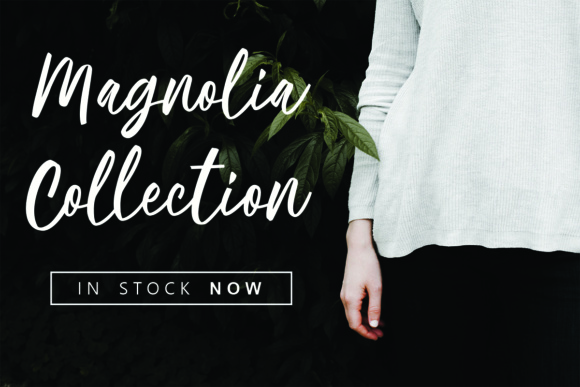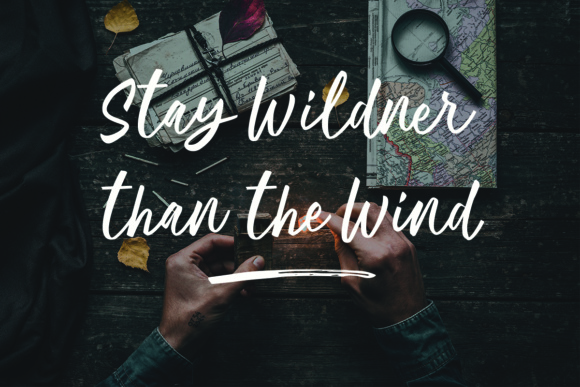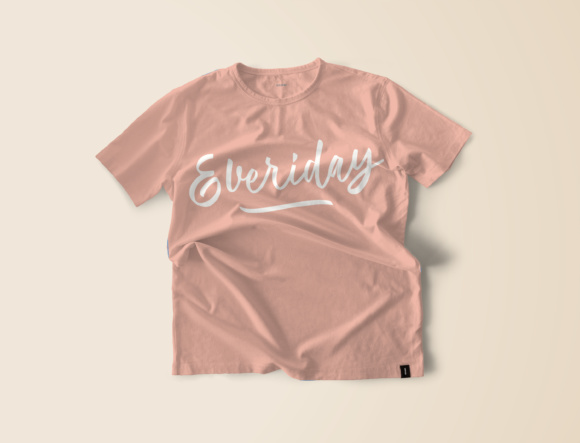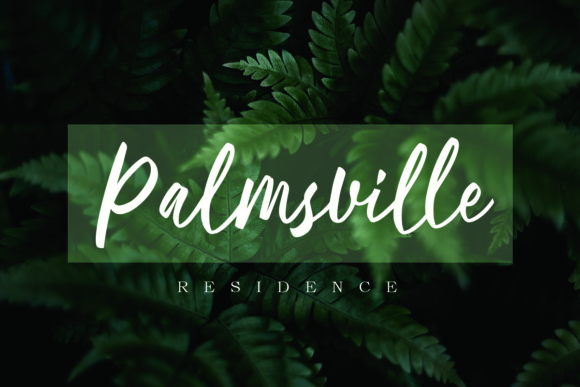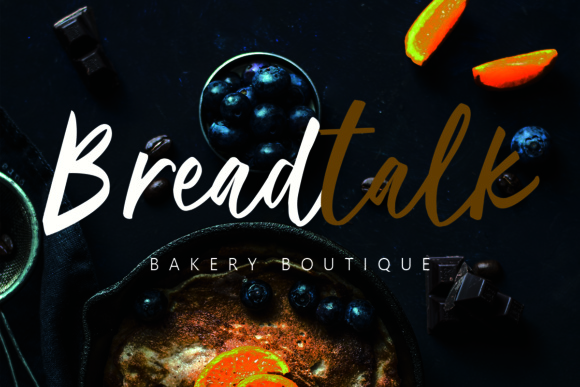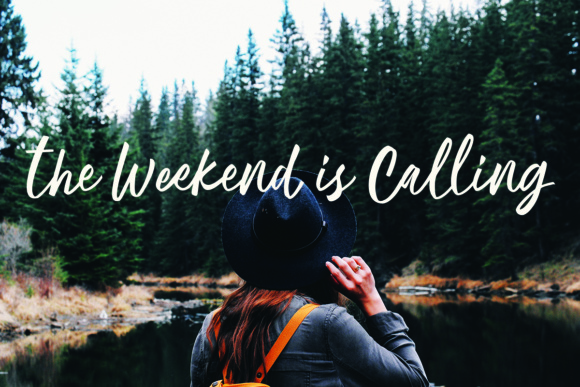
The Perfect Script for Your Next Design Project
As I sat at my desk, staring at a blank canvas, I knew I needed something special to bring my design to life. I wanted a font that would transport me to a world of elegance and sophistication, where every letter danced across the page with finesse and poise. That’s when I stumbled upon the Ballerina Font – a beautiful script font that would become the perfect match for my next creative project.
The Ballerina Font is a masterfully crafted, handwritten font that adds a touch of modernity to any design. Each letter is carefully crafted to evoke a sense of refinement and beauty, making it the perfect choice for designers looking to add a touch of whimsy and sophistication to their work.
With its unique, hand-written style, the Ballerina Font offers endless possibilities for creative expression, allowing designers to add a personal touch to their designs and stand out from the crowd.
- Unique Characteristics: The Ballerina Font features a elegant, cursive script with flowing connections, making it perfect for creating visually appealing and feminine designs.
Ballerina Font Review
Overall, I think the Ballerina font is a beautiful and elegant addition to any design project. It’s perfect for creating a whimsical and feminine touch. Here are some of its strengths:
- ✨ Elegant and refined letterforms that make it perfect for luxury brands or high-end designs
- ✨ Open counters and flowing connections give it a sense of movement and fluidity
- ✨ Great for use in logos, titles, or any element where you want to add a touch of sophistication
- ⚠️ Limited versatility, it’s best suited for specific design styles or projects
- ⚠️ May not be the best choice for body text, as it can be quite ornate and may be difficult to read at small sizes
- ⚠️ Some users may find the swashes and flourishes too ornate, which can be overwhelming
Overall, I would say the Ballerina font is a great choice for designers looking to add a touch of elegance and sophistication to their projects. However, it’s essential to consider the context and balance it with other design elements to avoid overwhelming the user.
The Ballerina font is perfect for:
- Formal event designs, such as galas and